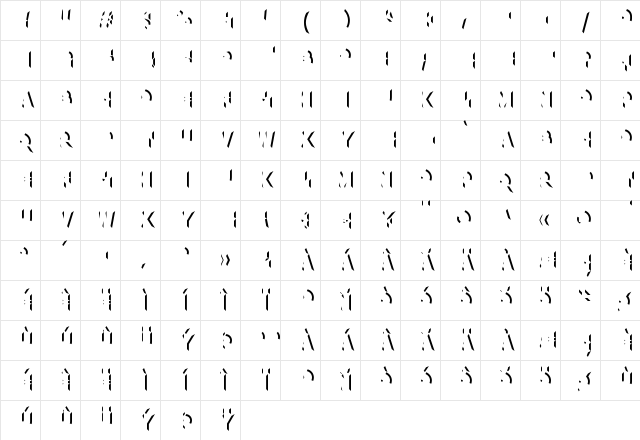
Xylitol Right
Design Context for Xylitol Typeface
Xylitol is a composed and adaptable typeface that performs quietly and consistently across a wide range of design contexts.